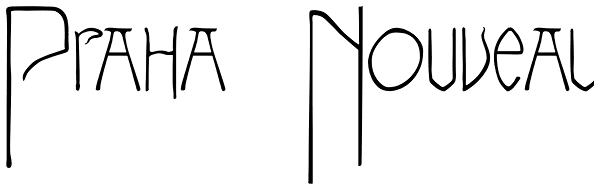
Praha Nouveau
I found this type specimen on the statue of Jan Hus in Prague’s Old Town Square. The statue was designed in 1903 by Ladislav Saloun, and its writing is the cutest Nouveau font I've ever seen. Filling in the blanks, I realized the need for a standard...